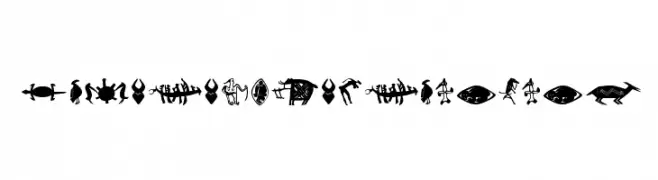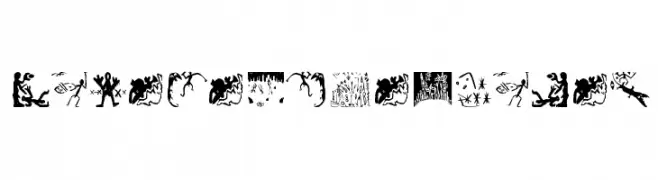
A font inspired by ancient cave paintings, featuring primitive and expressive symbols.
Pictographic, cave art-inspired decorative font with hand-drawn, irregular shapes.
An artistic font inspired by ancient cave paintings, featuring expressive and detailed characters.